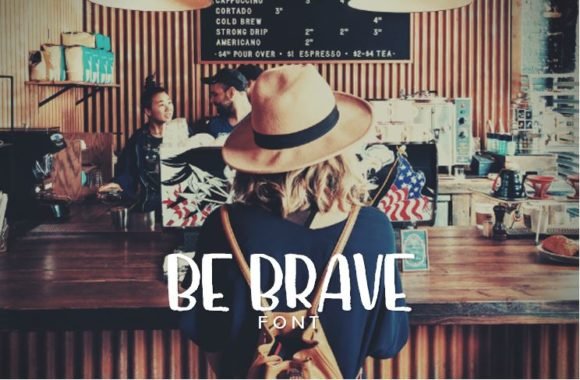
Unleash Your Creativity with Be Brave Font
Have you ever sat in front of your computer, staring blankly at a blank canvas, and thought, “I have no idea where to start”? We’ve all been there. But what if I told you that the right font could be the spark that sets your creativity ablaze?
Enter Be Brave Font, a delightful handwritten font that’s as sweet as it is inspiring. With its playful, whimsical charm, Be Brave Font is perfect for designers who want to add a touch of personality to their projects. Whether you’re creating a logo, a social media post, or a children’s book, this font is sure to bring a smile to your face and a dash of creativity to your work.
Be Brave Font Key Features
- Font Family: Be Brave Font is a sans-serif typeface, designed to convey confidence and courage.
- Unique Characteristics: Be Brave Font features a bold and modern design, with a distinctive x-height and a slightly condensed width.
Be Brave Font Review
I recently had the chance to work with the Be Brave Font and here are my honest thoughts.
- Unique character: The Be Brave Font has a distinctive and bold character that grabs attention.
- High contrast: The font’s high contrast design makes it perfect for use in headings and titles.
- Readability: The font is surprisingly readable, especially in larger sizes.
- Playful feel: The Be Brave Font has a fun and playful feel that’s perfect for creative projects.
- Not ideal for body text: Due to its bold design, the Be Brave Font is not the best choice for body text.
- Limited legibility at small sizes: While the font is readable in larger sizes, it can become difficult to read at smaller sizes.
- Limited language support: The Be Brave Font may not support all languages, which could be a limitation for certain projects.
Overall, I think the Be Brave Font is a great choice for projects where you want to make a bold statement. Just be aware of its limitations and use it wisely.
Tips for Getting the Most Out of Be Brave Font
Be Brave font is a bold and eye-catching font, making it perfect for headings and titles.
Use it sparingly to add emphasis and create visual interest in your designs.
Combine Be Brave font with other fonts to create a unique and engaging visual identity.
Be Brave font is ideal for:
Headings and titles
Marketing materials
Branding and logos
Social media graphics